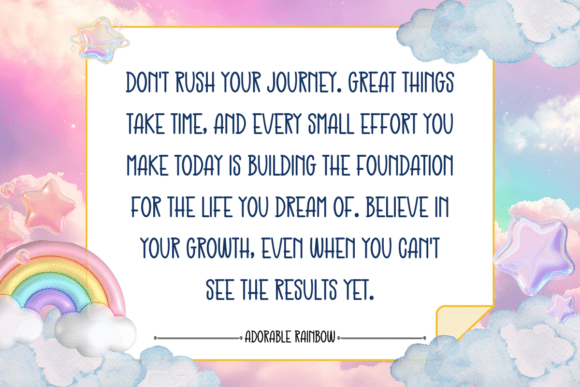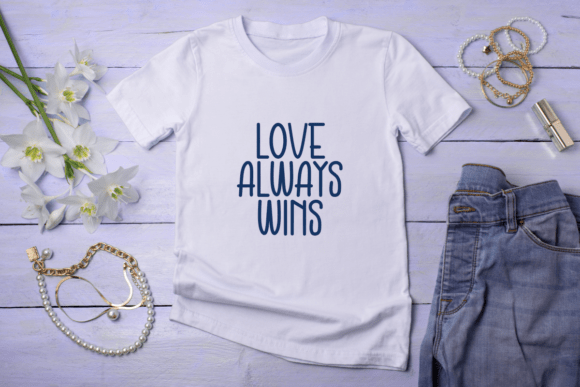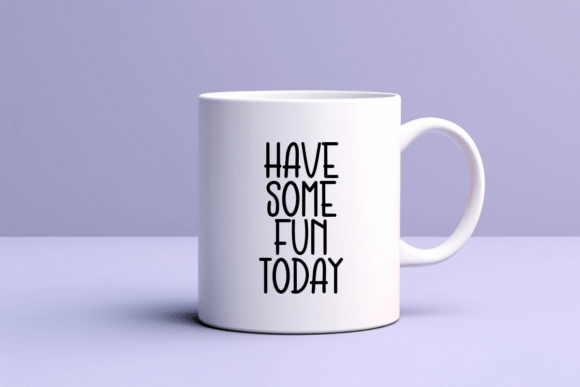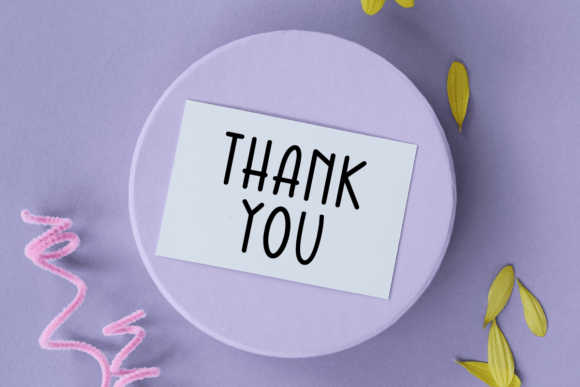
The Adorable Rainbow Font: A Designer’s Delight
I’ll never forget the time I was working on a project for a client’s birthday party invitations. I had a clear vision of a colorful, whimsical design, but I was struggling to find the perfect font to bring it all together. That’s when I stumbled upon the Adorable Rainbow font, and it instantly became the star of the show! ✨
Adorable Rainbow is a fancy handwriting font that exudes a cute and playful style, making it perfect for a wide range of creative projects, from quotes and stickers to mugs, tumblers, and t-shirts.
- ✨ The Adorable Rainbow font has a unique, hand-crafted feel that’s perfect for adding a personal touch to any design.
- ✅ It’s incredibly versatile and can be used for a variety of projects, from digital designs to print materials.
- 🎉 The font comes with a range of OpenType features, including glyphs and stylistic alternates, which allow for endless creative possibilities.
While Adorable Rainbow is an amazing font, there are a few things to keep in mind: 🤔
- ⚠️ The font can be a bit tricky to read at smaller sizes, so it’s best to use it for headlines or titles rather than body text.
- ⚠️ Some of the glyphs and special characters can be a bit finicky, so be sure to experiment and play around with the font to get the most out of it.
According to the font’s creators, Adorable Rainbow was inspired by the colorful and whimsical world of childhood. The font’s designer wanted to create a typeface that would evoke the feeling of joy and playfulness, while also being versatile and easy to read. The result is a font that’s perfect for designers, crafters, and creative hobbyists who want to add a touch of personality to their projects.
A: Adorable Rainbow is a fancy handwriting font with a cute and playful style, perfect for a wide range of creative projects.